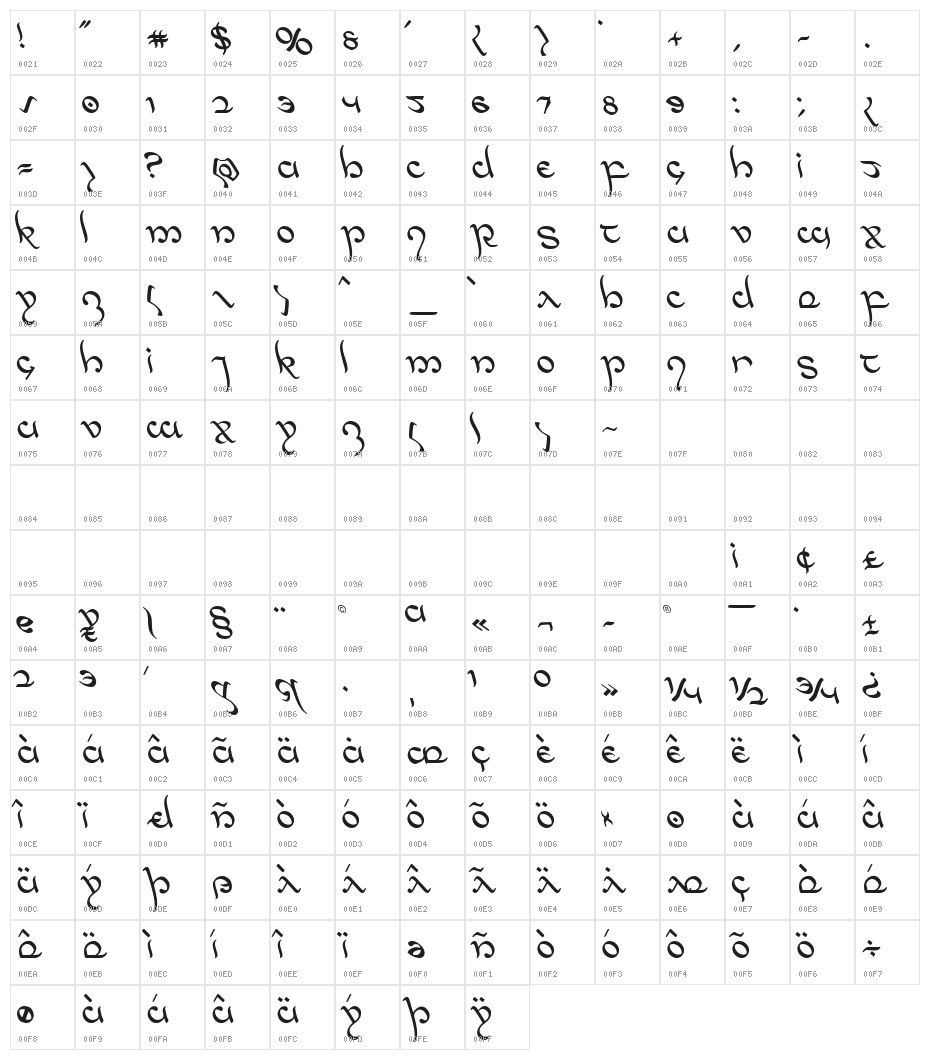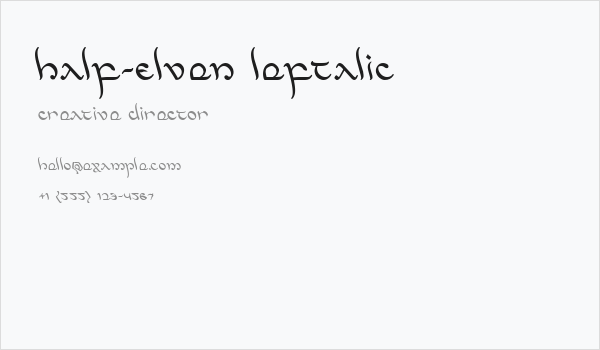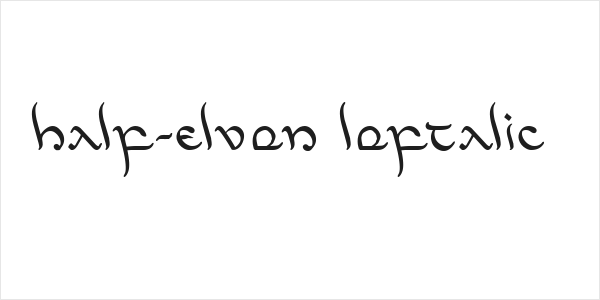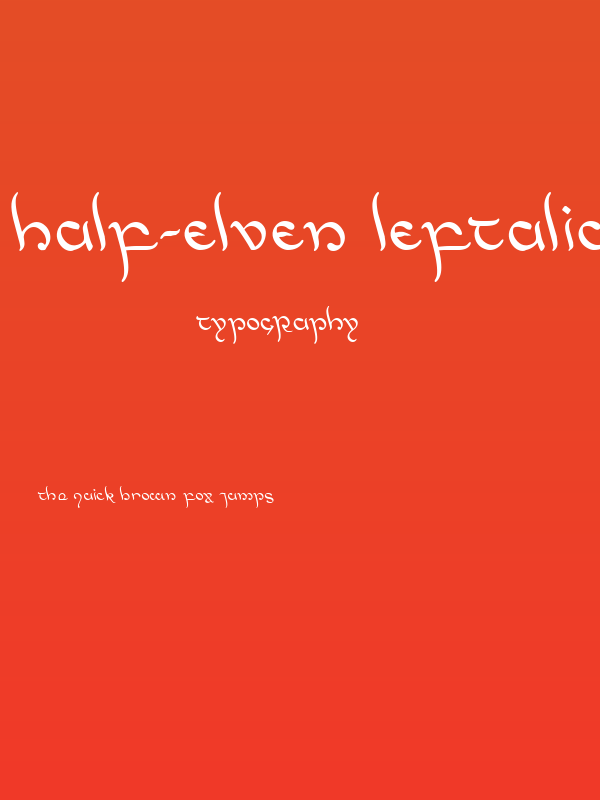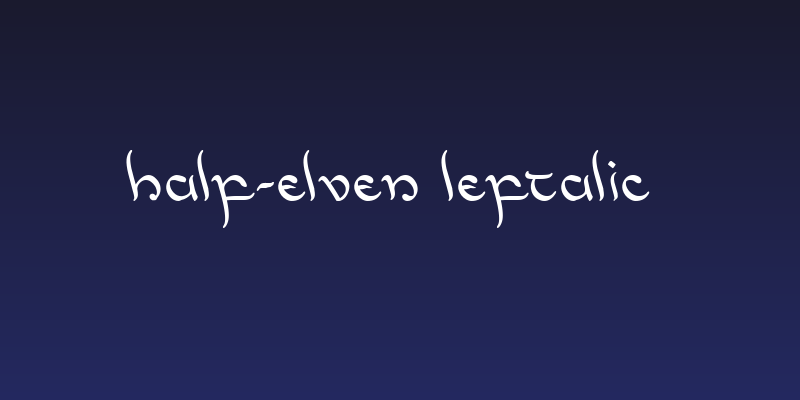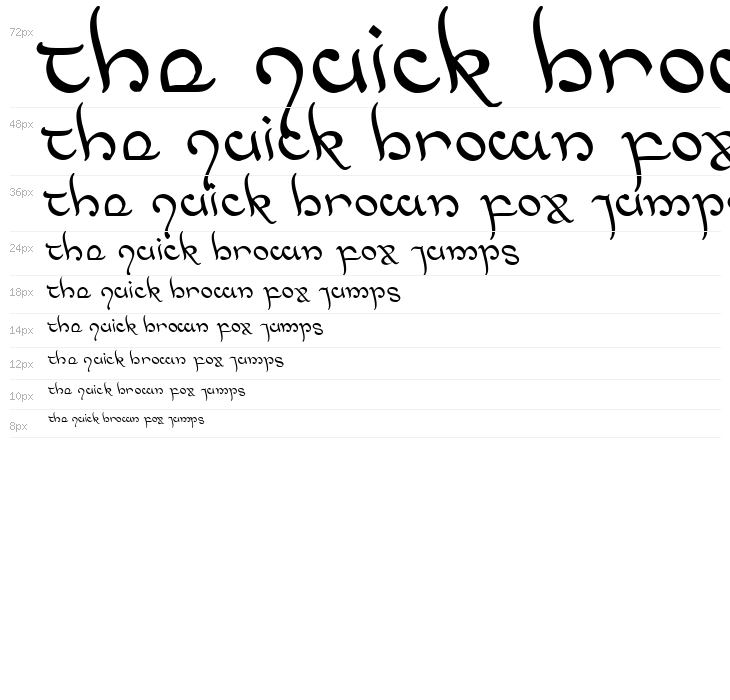
Half-Elven Leftalic Font
Half-Elven Leftalic Description
This font features a unique, decorative style with a fantasy-inspired aesthetic. The characters have an elegant, flowing design with a slight slant, giving them a dynamic and whimsical appearance. The strokes are smooth and consistent, with moderate contrast between thick and thin lines. The overall look is reminiscent of elven or mystical script, making it ideal for projects that require a touch of magic or fantasy. The numerals and special characters maintain the same stylistic elements, ensuring a cohesive appearance across all text.
| Overall Style | Fantasy, Decorative |
| Use Case | Headlines, Logos, Decorative text |
| Proposed Projects | Perfect for fantasy book covers, game titles, themed invitations, and decorative posters. |